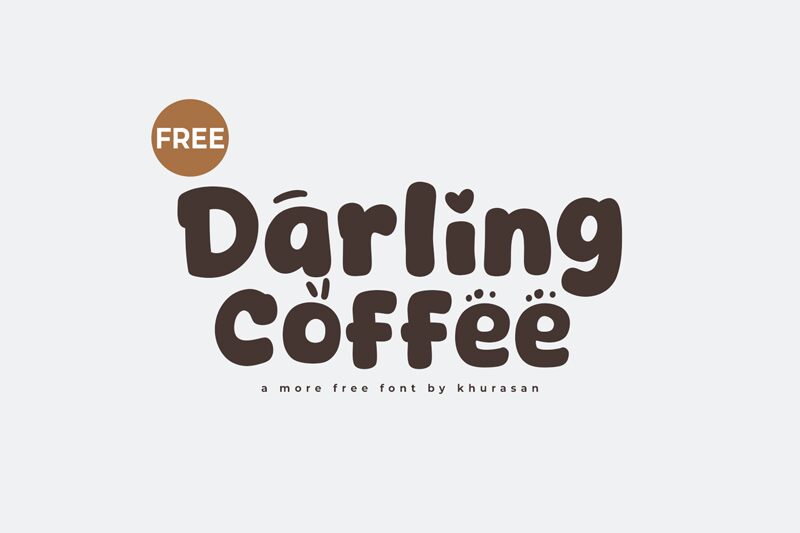
Darling Coffee
Darling Coffee, a charming display font crafted by designer Khurasan, exudes a playful and whimsical appeal. With its bold, cartoonish strokes and a touch of café-inspired flair, this font captivates the senses and instantly infuses any design with a delightful, inviting atmosphere.
Darling Coffee's unique character shines through its rounded letterforms and playful ligatures, creating a sense of warmth and approachability. Its versatile design lends itself well to a variety of applications, from eye-catching headlines and logos to cheerful branding and packaging designs. Whether you're crafting a cozy café menu, designing a vibrant children's book cover, or seeking to inject a dose of playfulness into your creative projects, Darling Coffee by Khurasan is a font that will effortlessly capture the hearts and attention of your audience.